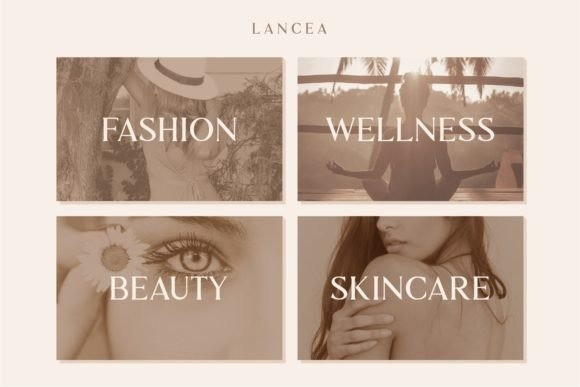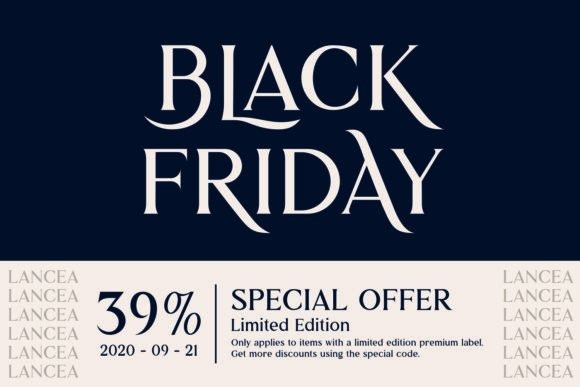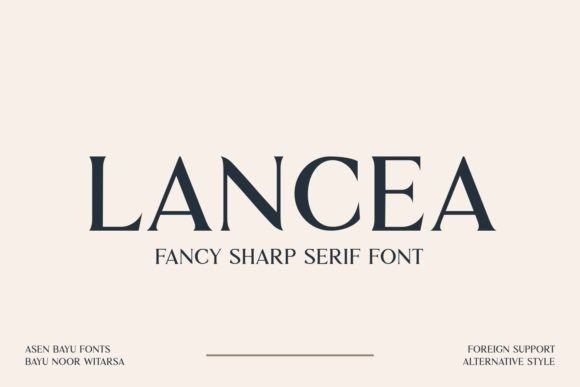
Lancea Font
Lancea Serif Font is a fancy sharp serif font. Inspired by medieval roman writing combined with the sharpness of a lance, Lancea gives a sophisticated feel with a sleek and clean accent. Lancea is perfect for a variety of projects such as luxury brand logos, journals, business cards, headlines, social media posts, and more. This font is PUA encoded which means you can access all the glyphs and alternates with ease!